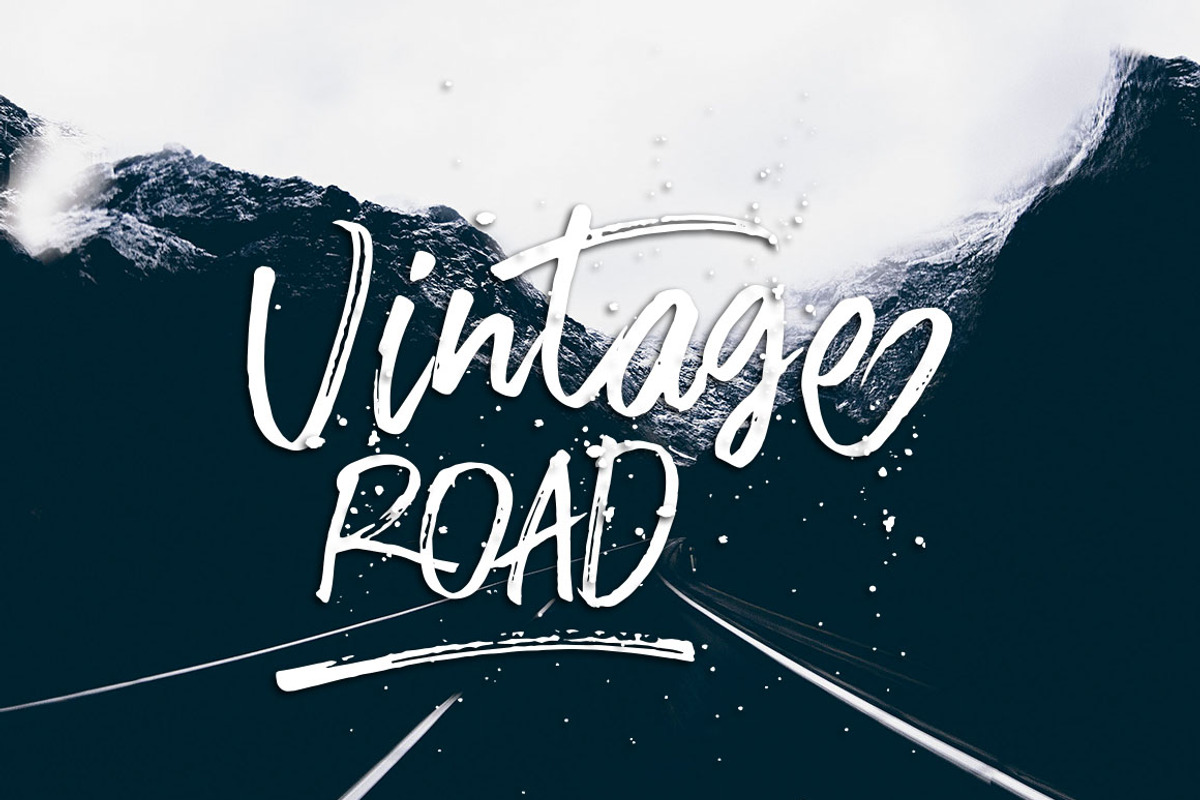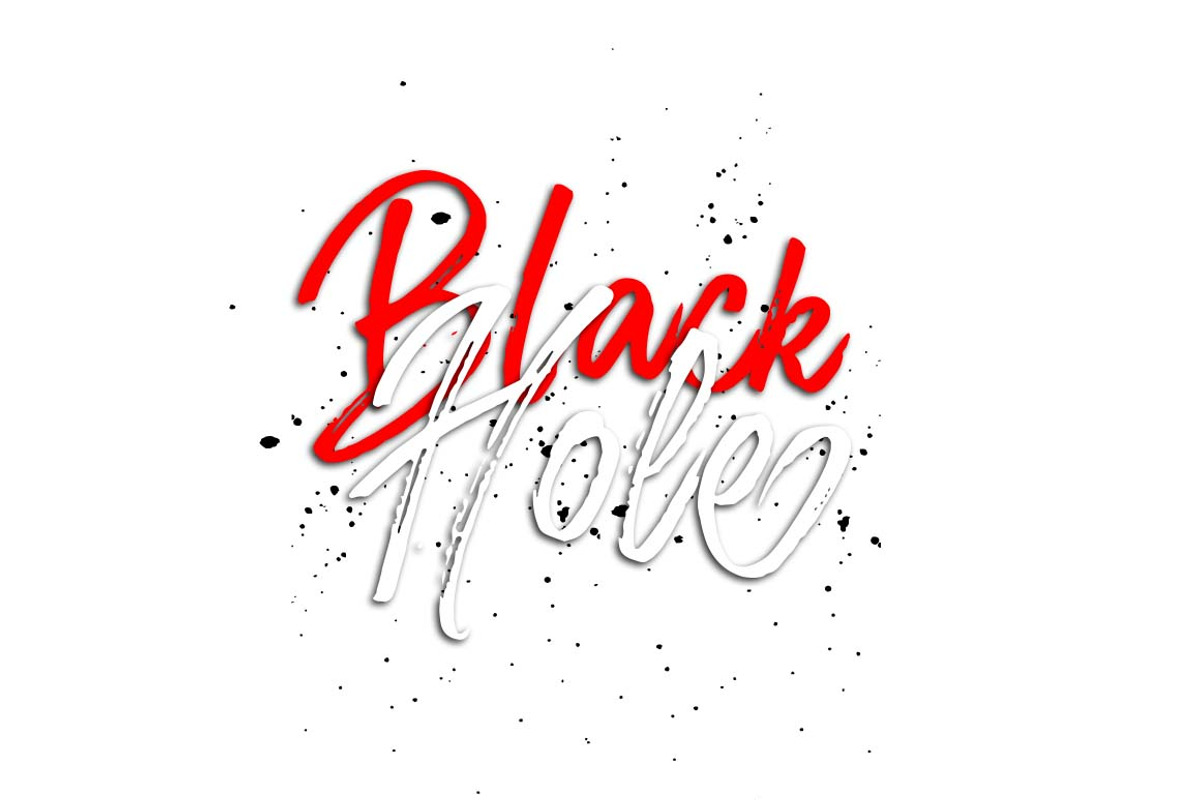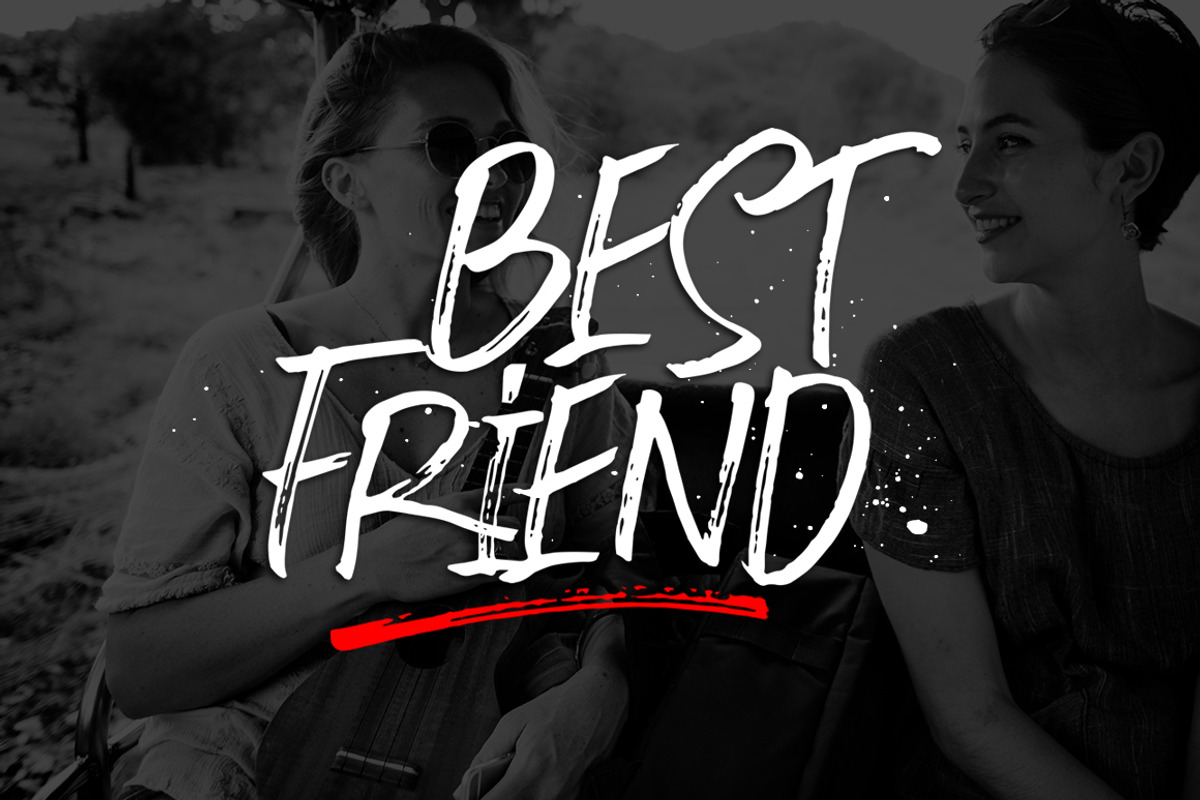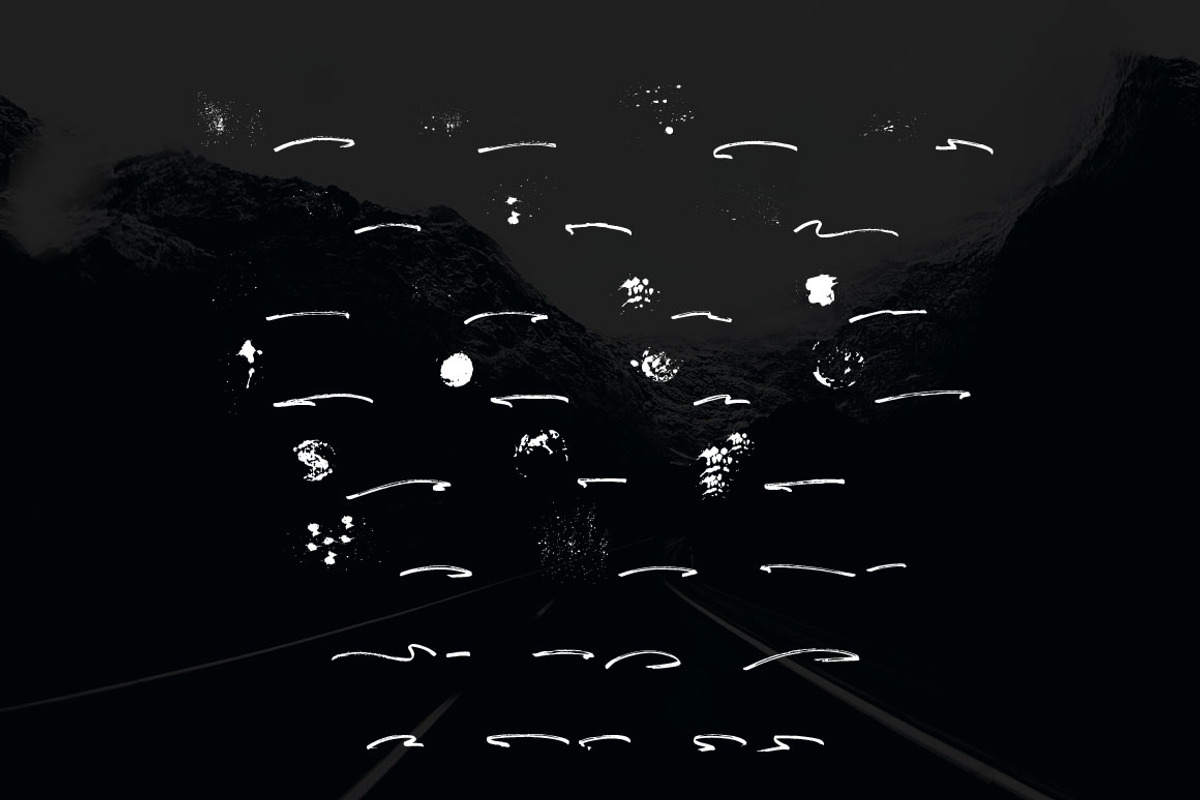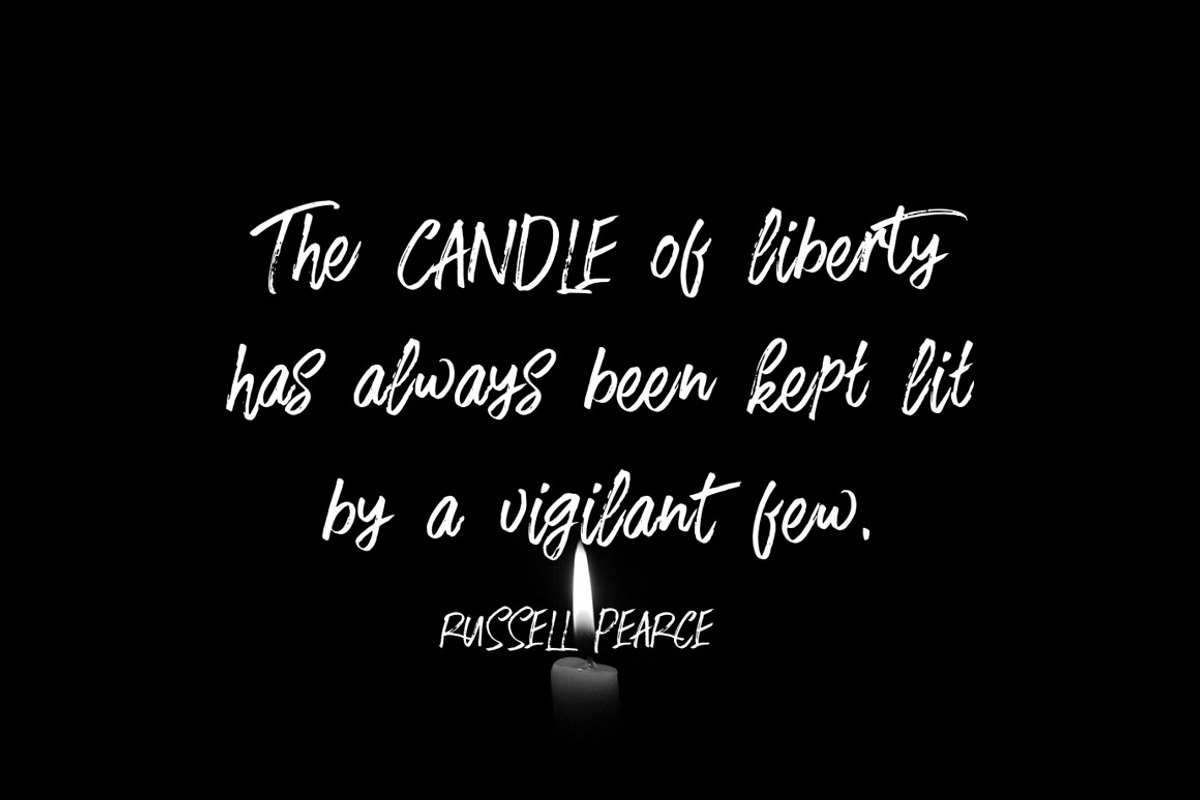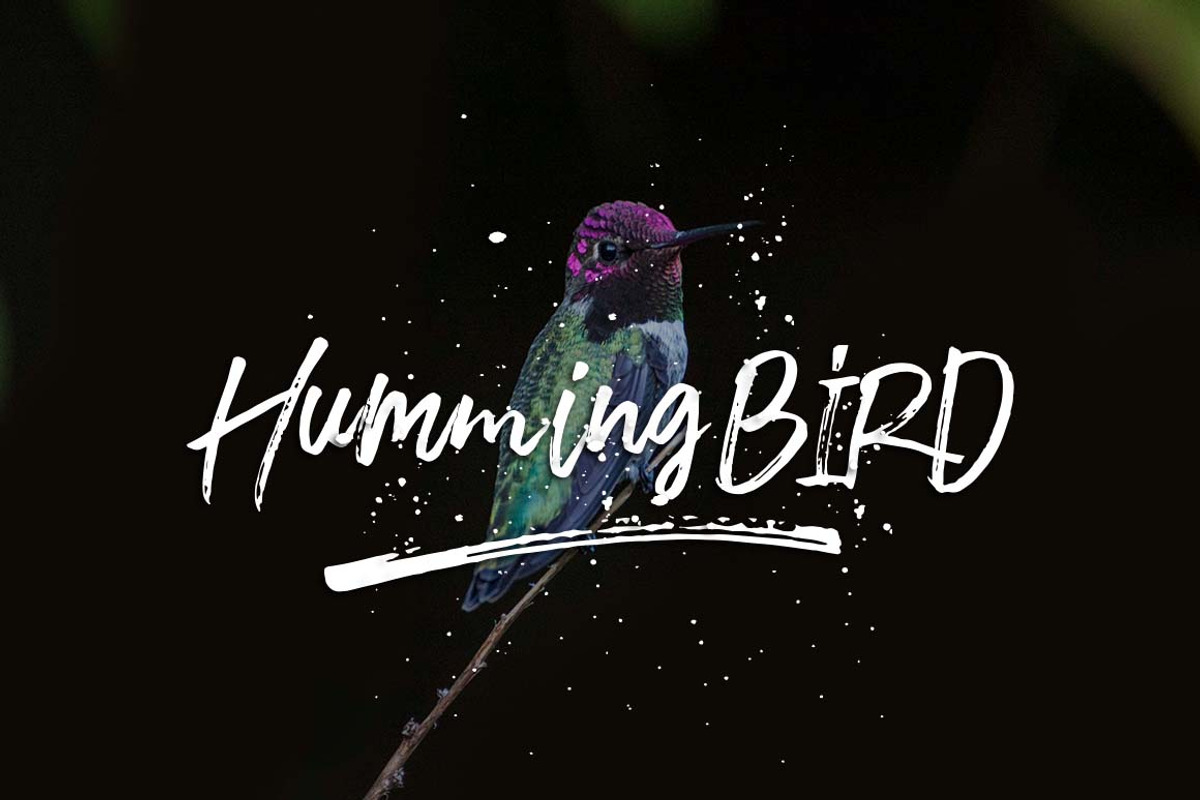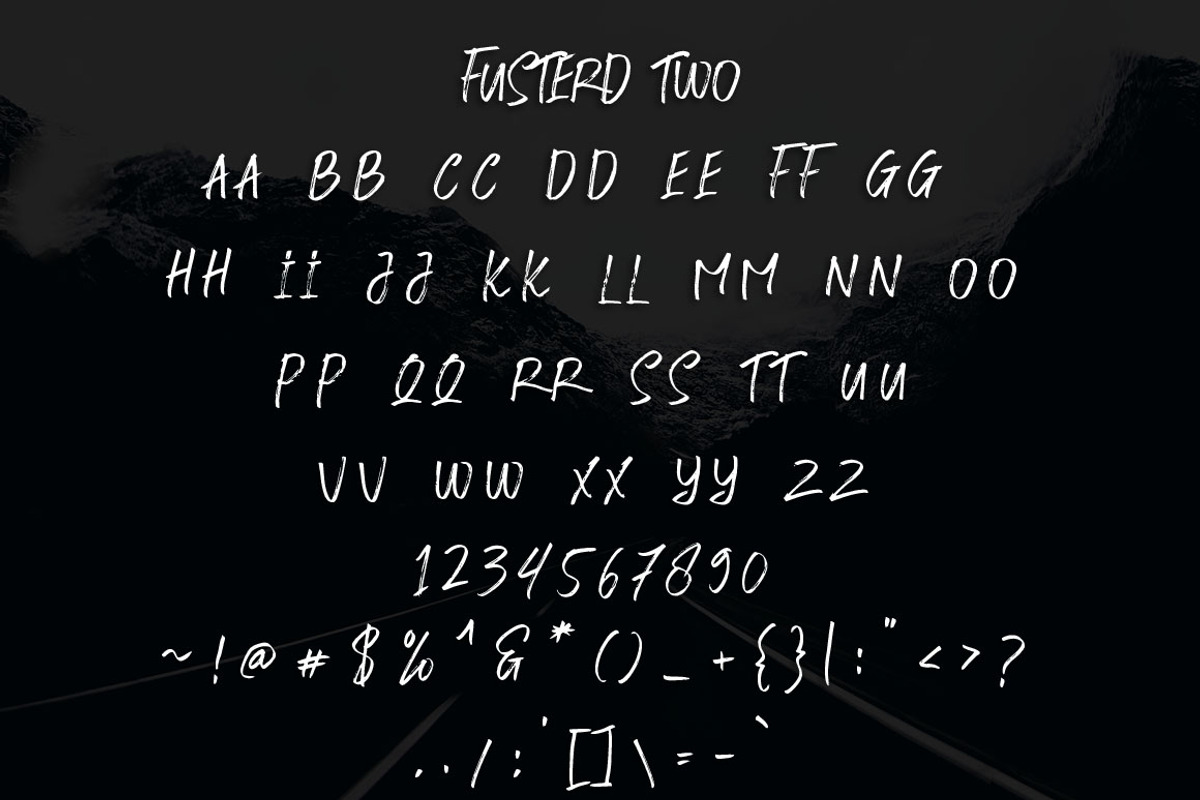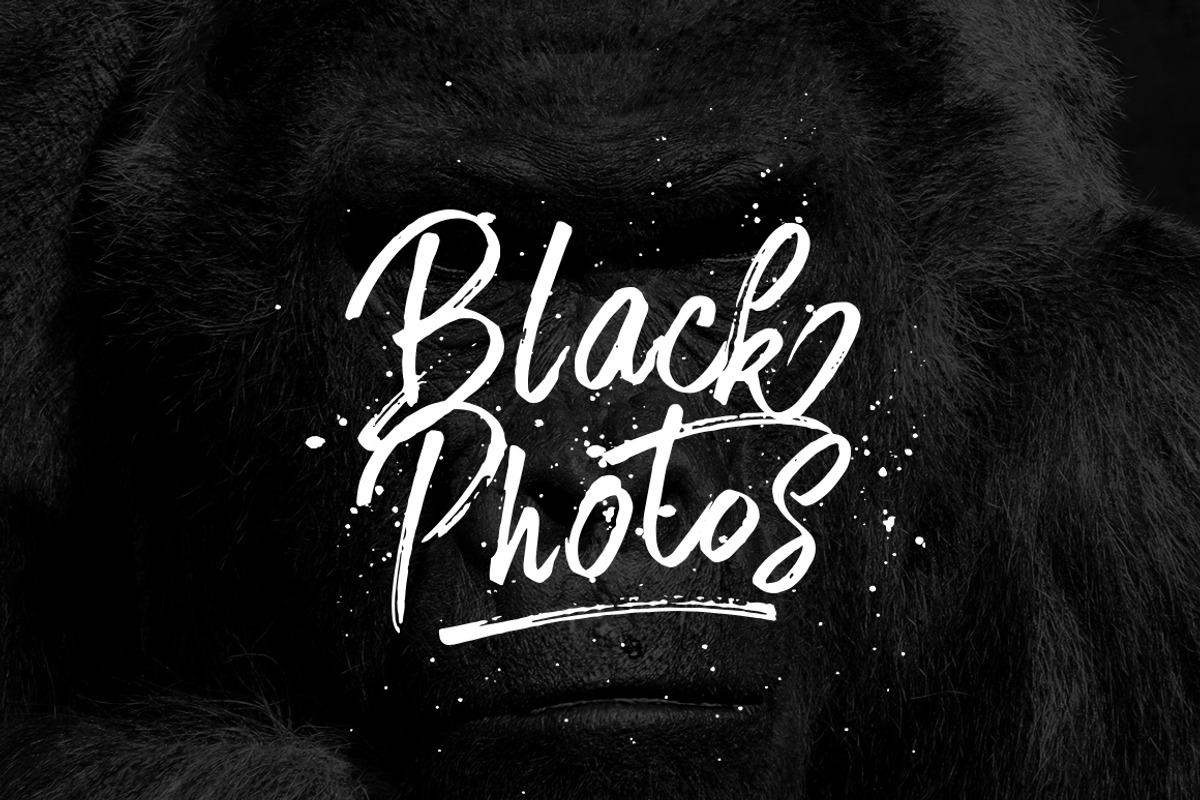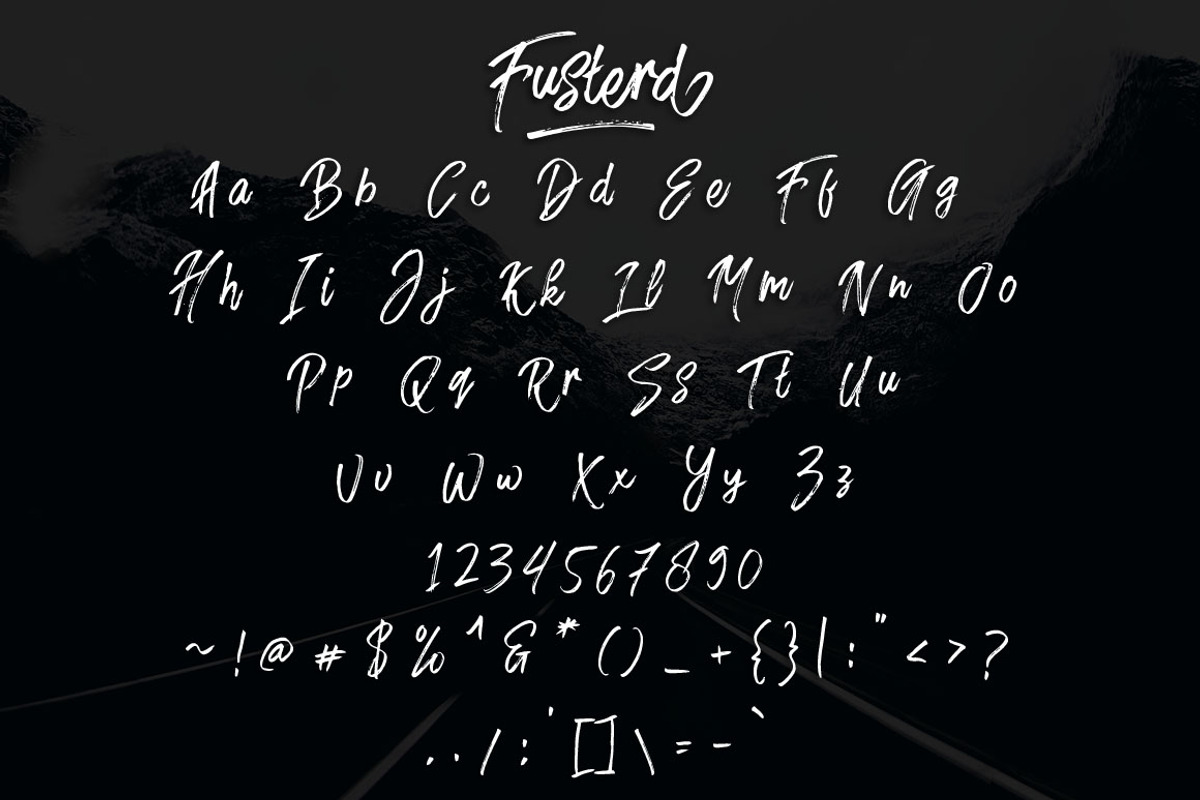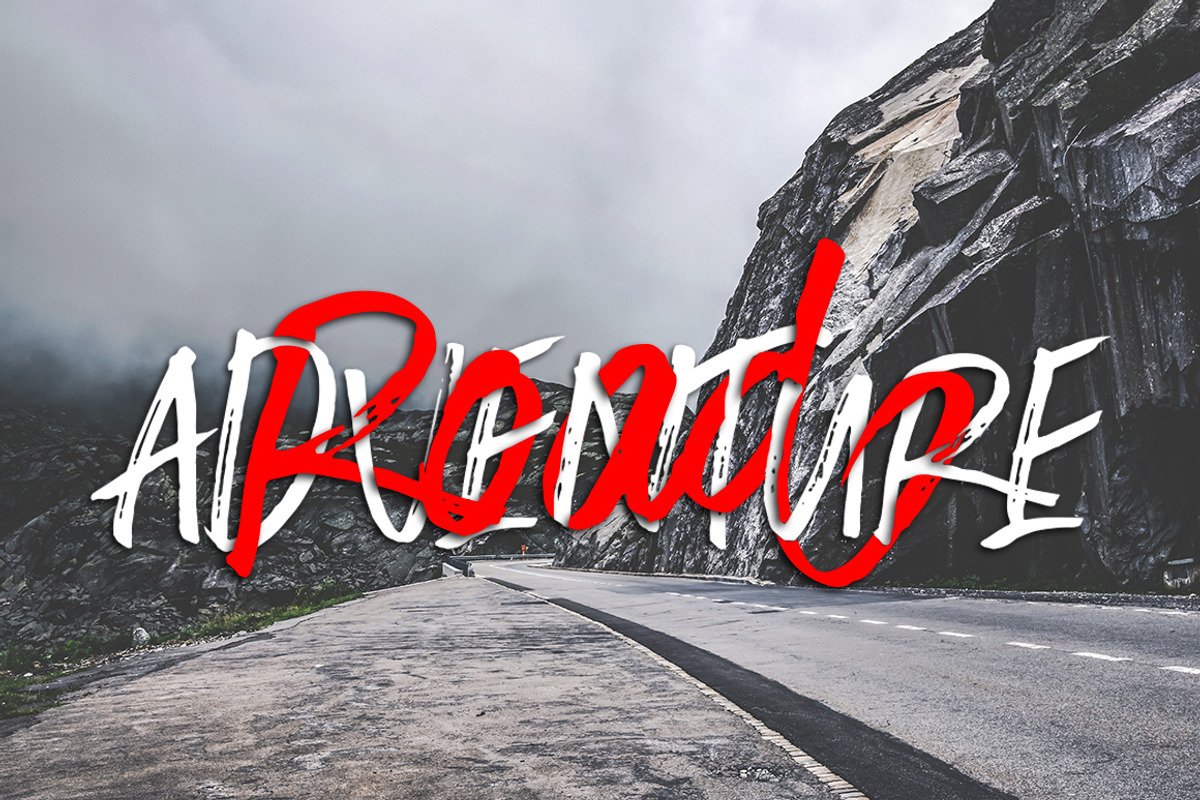
Fuster Brush
Introducing a lovingly handmade new typeface, Fuster Brush, a fun and imperfect modern brush script font with a tough of uniqueness driven. Design like a professional with this typeface that fits perfectly for your wedding invitations, street ads, Instagram posts, t-shirt design, branding, and much more.